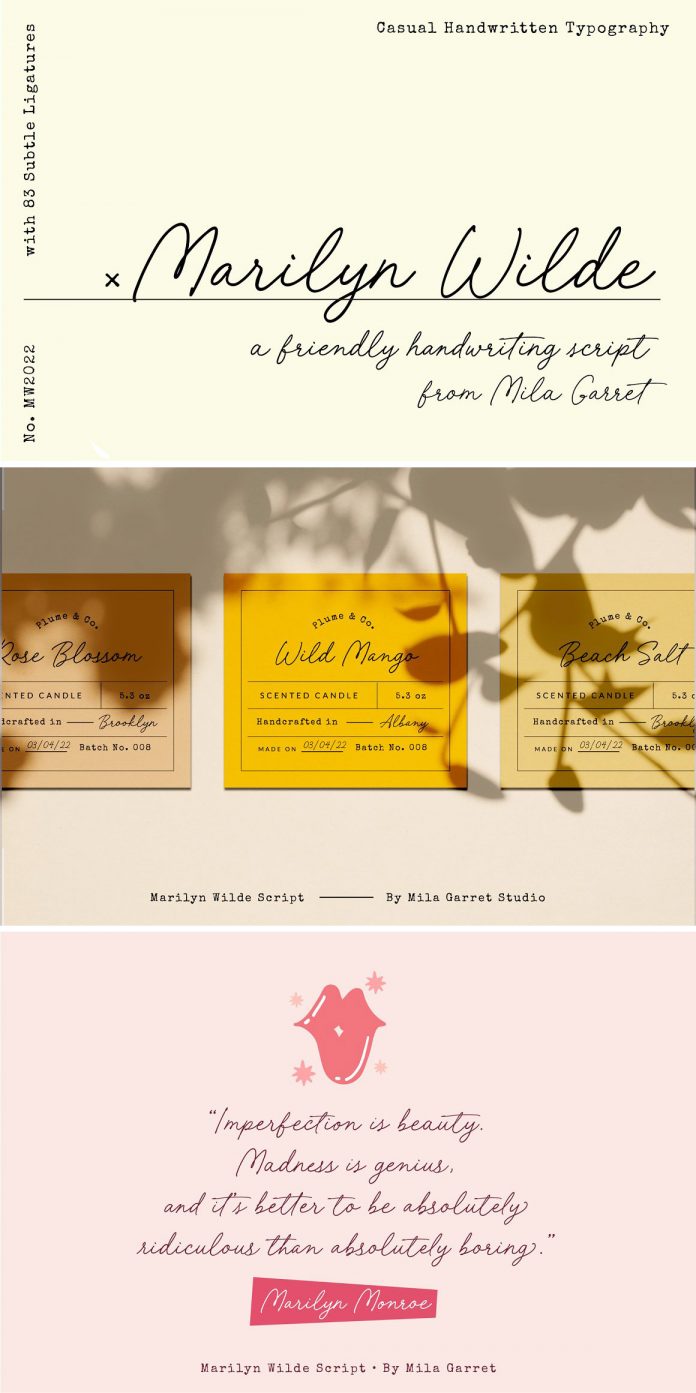
Mila Garret has designed, Marilyn Wilde, a natural handwriting script font.
Characterized by friendly curves, Marilyn Wilde is a natural handwriting font. Designed by Mila Garret, it comes with plenty of subtle ligatures. With its neat cursive handwriting style, the Marilyn Wilde font can add a human touch to your designs. You can use it for modern logo designs, Instagram posts, wedding invitations, printed collateral, websites, etc.
There is also a rough version included for a more organic, analog handwritten look and feel. Just click on the following link to learn more about the Marilyn Wilde handwriting script font.